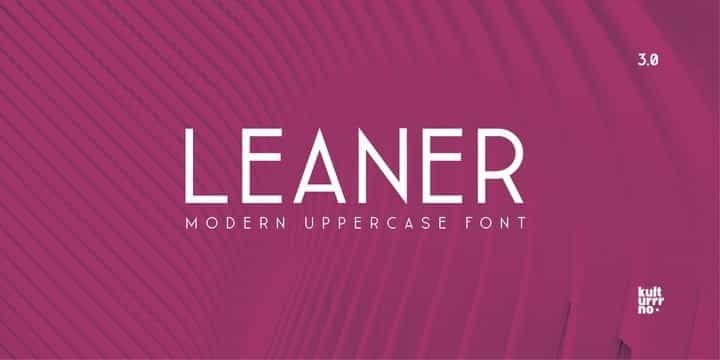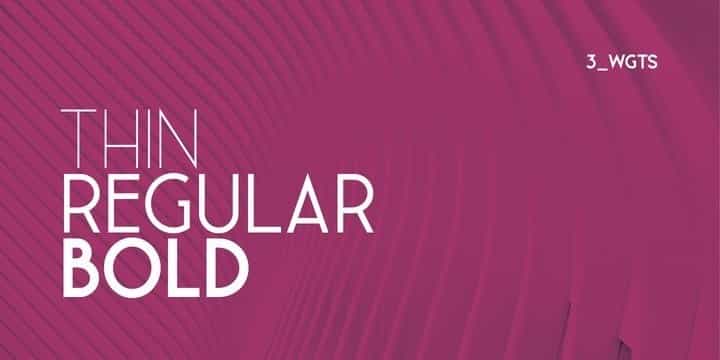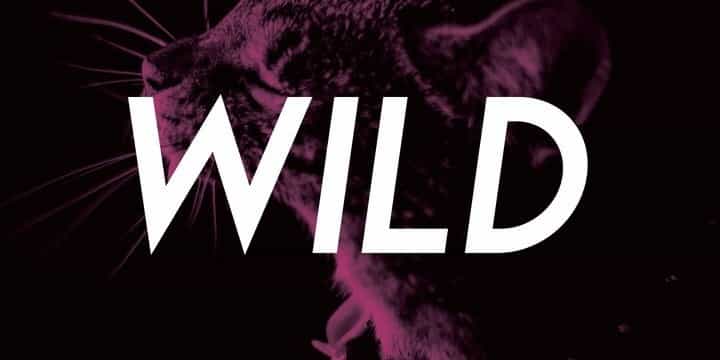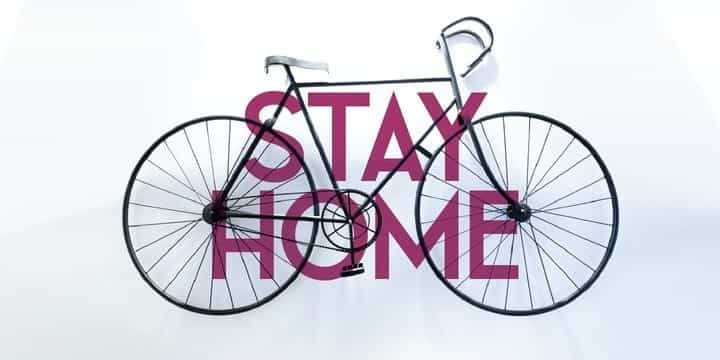
Leaner can be described as a flexible multiple weight font of the simple all caps sans serif type, suitable for branding and logos, writings and invitations, including weddings and much more, social networks. It is suitable for many uses!